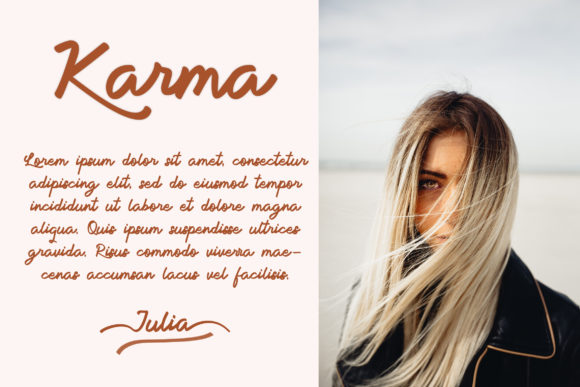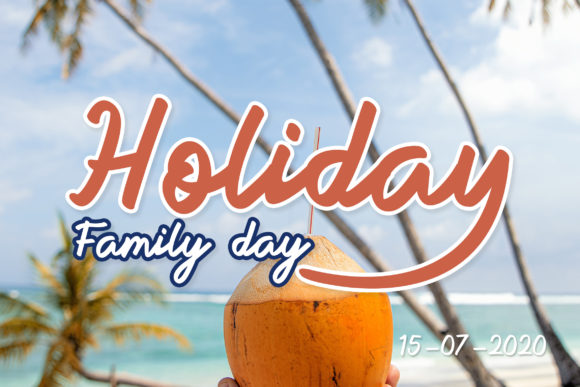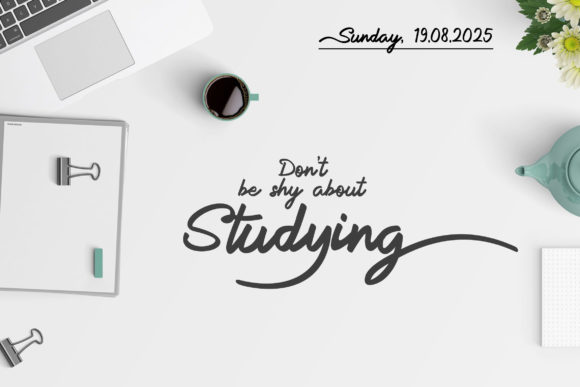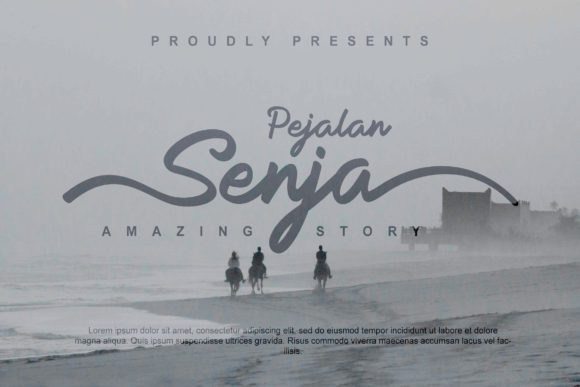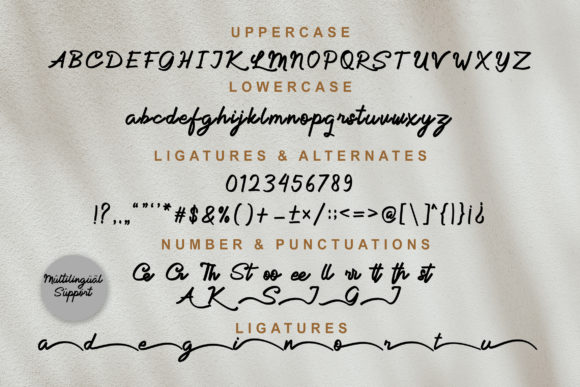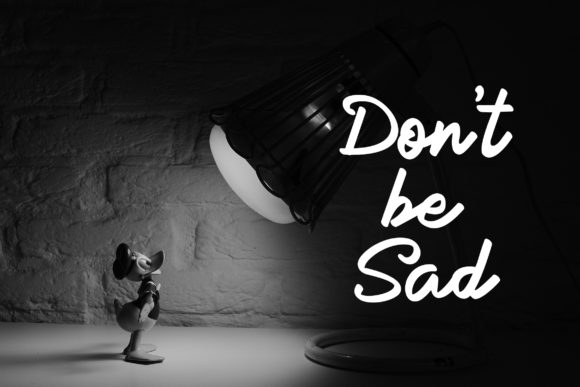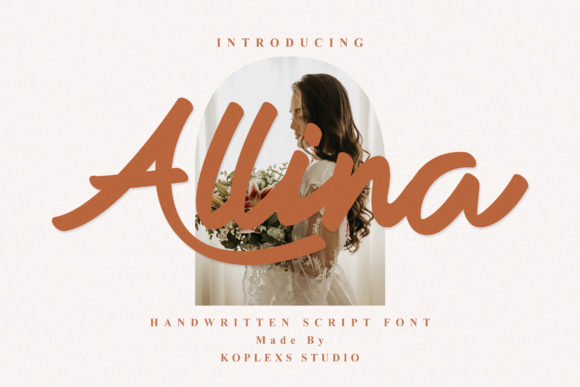
Discover the Elegance of Allina Font: A Timeless Handwritten Script
Are you on the hunt for a font that exudes elegance and sophistication? Look no further than Allina Font, a beautiful, flowing handwritten script that is sure to capture your heart. With its distinct and timeless style, Allina is the perfect addition to any design project, from crafting and scrapbooking to branding and advertising.
The Characteristics of Allina Font
Allina Font is a carefully crafted handwritten script that boasts an elegant touch, making it perfect for designers and crafters who want to add a touch of sophistication to their work. This font is characterized by its:
- Flowing Script: Allina’s script flows effortlessly across the page, creating a beautiful, fluid motion that is a joy to behold.
- Elegant Touch: With its delicate lines and subtle curves, Allina adds an air of elegance to any design, making it perfect for projects that require a touch of sophistication.
- Distinct Style: Allina’s unique style sets it apart from other fonts, making it a standout choice for designers who want to create something truly special.
- Timeless Appeal: Unlike trendy fonts that quickly go out of style, Allina’s classic design ensures that it will remain a timeless choice for years to come.
What Makes Allina Font So Versatile?
Allina Font is an incredibly versatile script that can be used in a wide range of design projects, including:
- Branding and Advertising: Add a touch of elegance to your brand’s logo or advertising materials with Allina’s sophisticated script.
- Crafting and Scrapbooking: Create beautiful, eye-catching projects with Allina’s flowing script, perfect for journaling, titles, and headings.
- Wedding and Event Planning: Use Allina to create stunning wedding invitations, menus, and other event materials that exude elegance and sophistication.
- Digital Design: Add a touch of class to your digital designs, including social media graphics, blog posts, and website headers.
The Benefits of PUA Encoding
Allina Font is PUA (Private Use Area) encoded, which means that you can access all of the glyphs and swashes with ease. This encoding allows you to:
- Access Alternate Characters: With PUA encoding, you can access a range of alternate characters, including swashes, ligatures, and other special glyphs.
- Customize Your Design: By accessing the full range of glyphs and swashes, you can customize your design to create a truly unique look.
- Ease of Use: PUA encoding makes it easy to use the font, even for designers who are new to working with encoded fonts.
Tips for Using Allina Font
To get the most out of Allina Font, here are a few tips to keep in mind:
- Experiment with Sizes: Allina looks beautiful in a range of sizes, from small and delicate to large and bold.
- Play with Colors: Try pairing Allina with different colors to create a range of effects, from subtle and elegant to bold and eye-catching.
- Mix and Match: Don’t be afraid to mix and match Allina with other fonts to create a unique and interesting look.
Allina Font is a beautiful, elegant handwritten script that is perfect for designers and crafters who want to add a touch of sophistication to their work. With its distinct and timeless style, PUA encoding, and versatility, Allina is a font that is sure to become a favorite in your design arsenal. So why wait? Fall in love with Allina’s incredibly distinct and timeless style and use it to create spectacular designs that will leave a lasting impression.